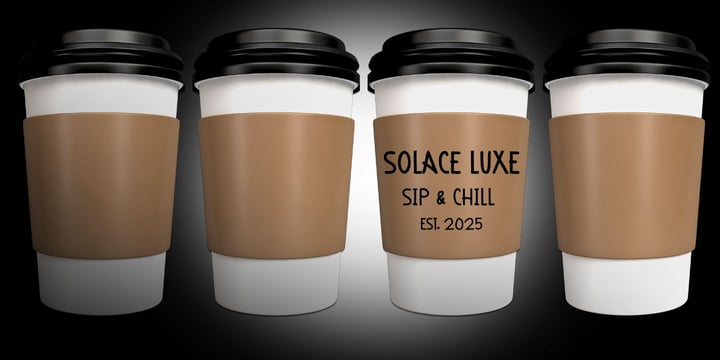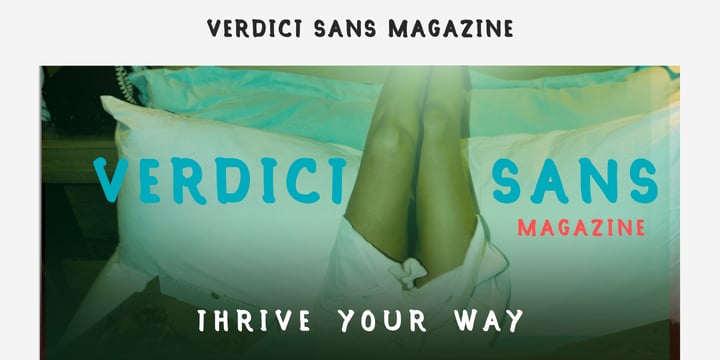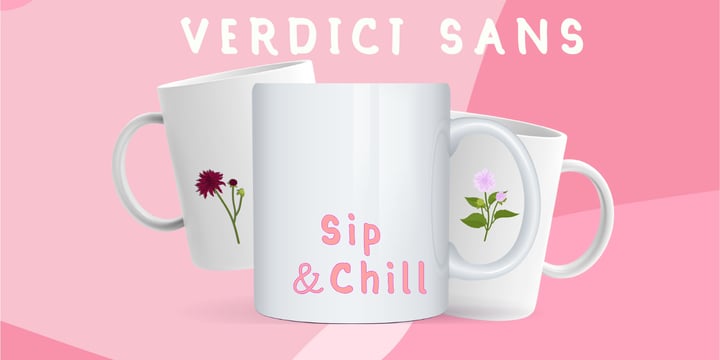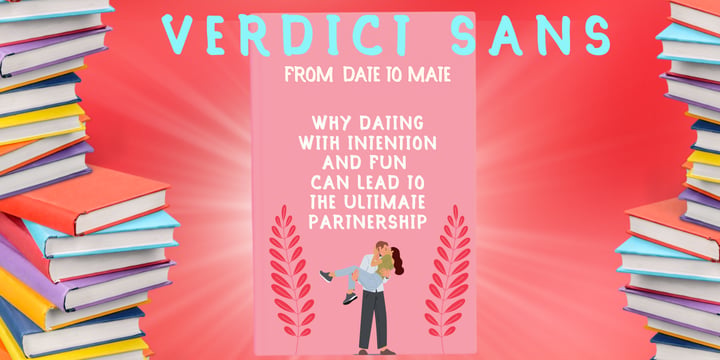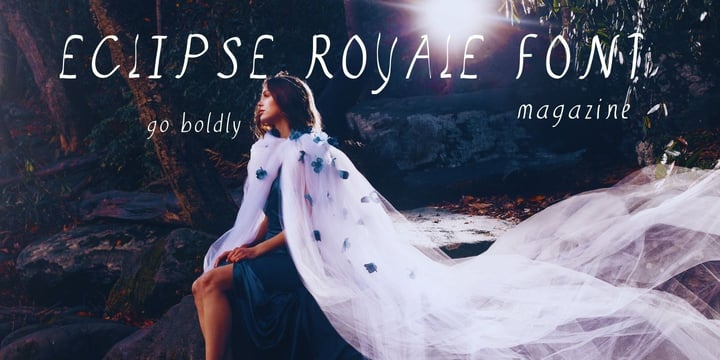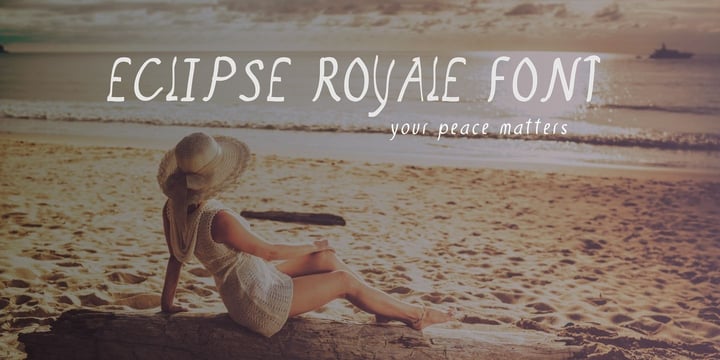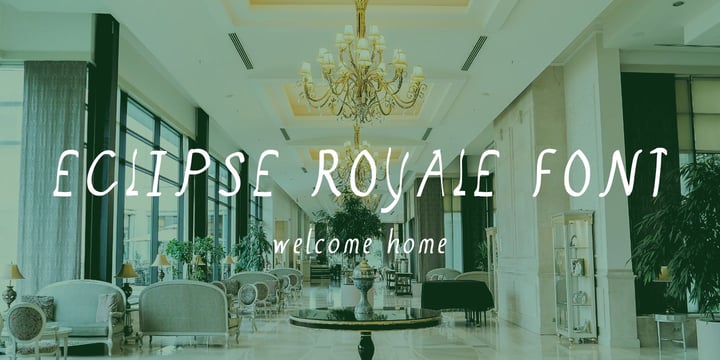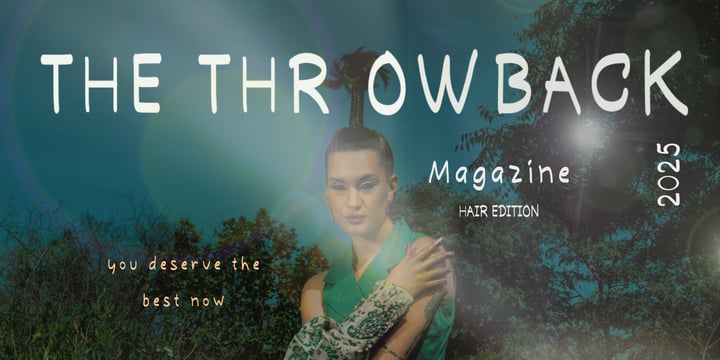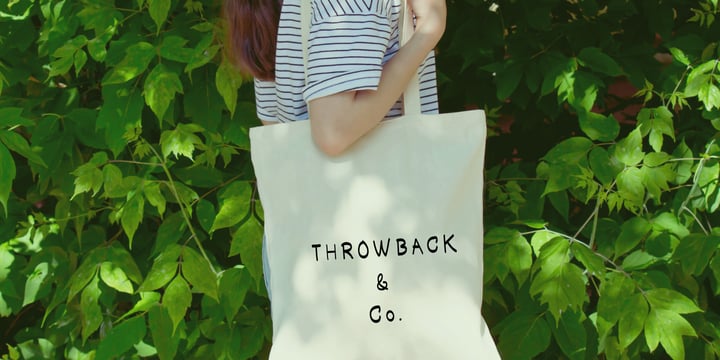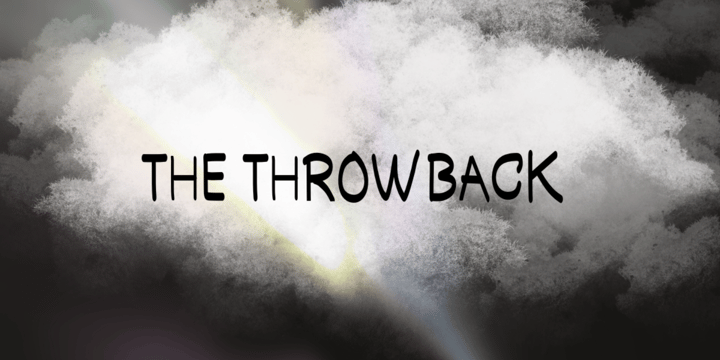
Lesley Nurse
Lesley Nurse is the creative force behind LDN Surface & Co., a type foundry dedicated to crafting fonts that merge artistic expression with commercial functionality. With a background in design, branding, and storytelling, her approach to typography is rooted in creating distinctive letterforms that elevate brand identities, packaging, and digital experiences.
Lesley’s work is inspired by the intersection of classic aesthetics and modern trends, ensuring her typefaces resonate with both established brands and emerging creatives. Each font is designed to be versatile, highly legible, and emotionally compelling, making them ideal for high-end editorial layouts, advertising campaigns, and innovative design projects.
With a strong foundation in surface design and visual communication, Lesley understands the power of typography in shaping narratives and consumer engagement. Her fonts are created with precision, passion, and purpose, ensuring they provide designers and businesses with the perfect balance of style and function.